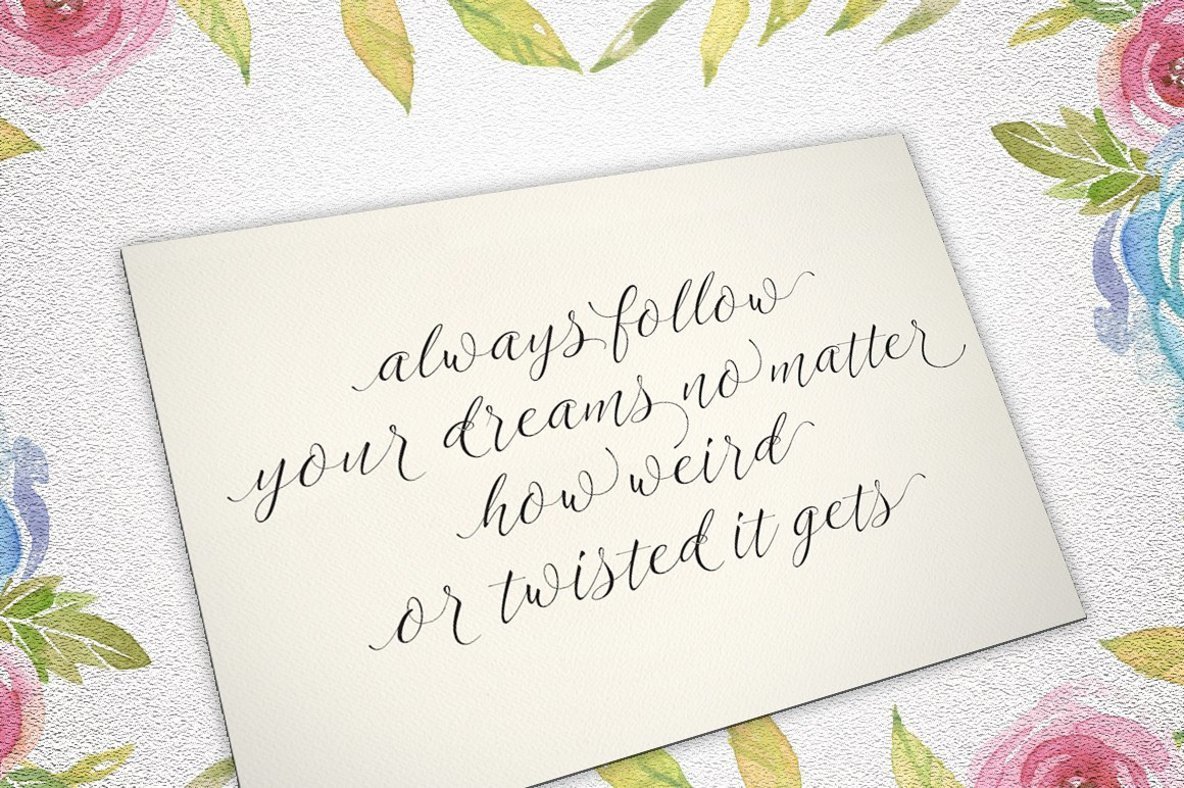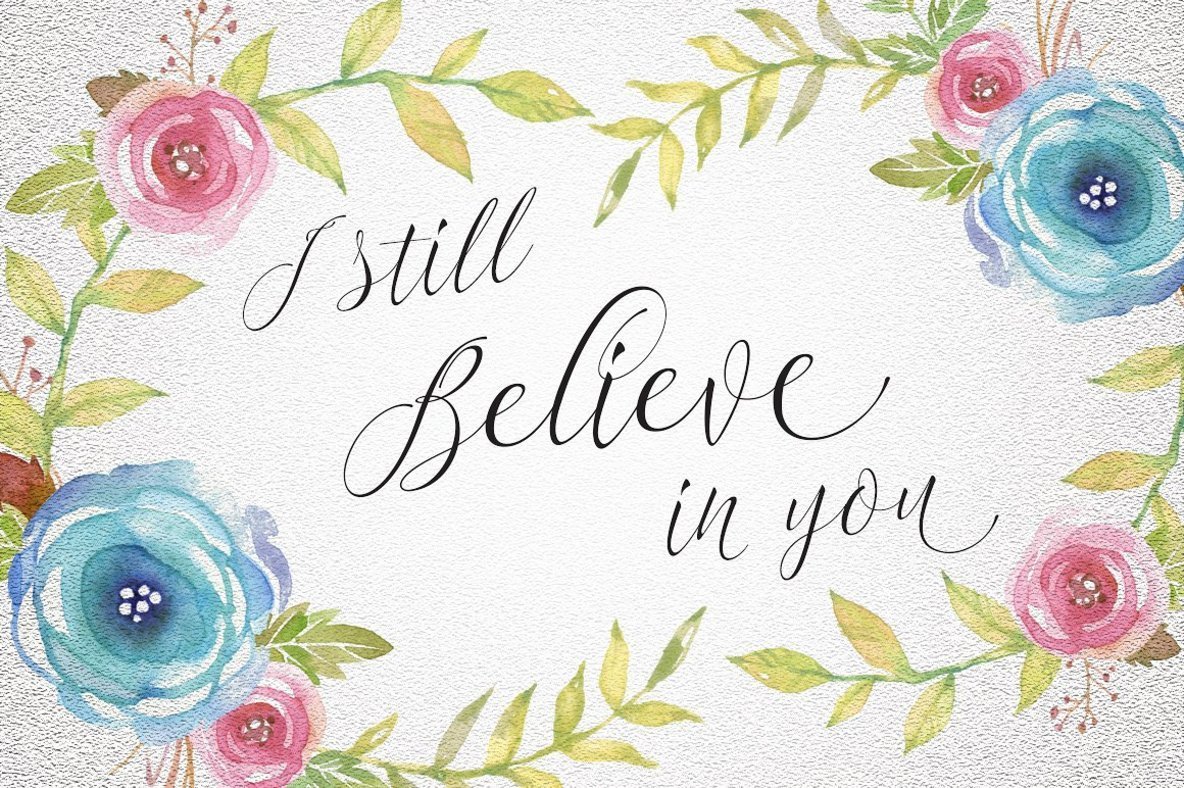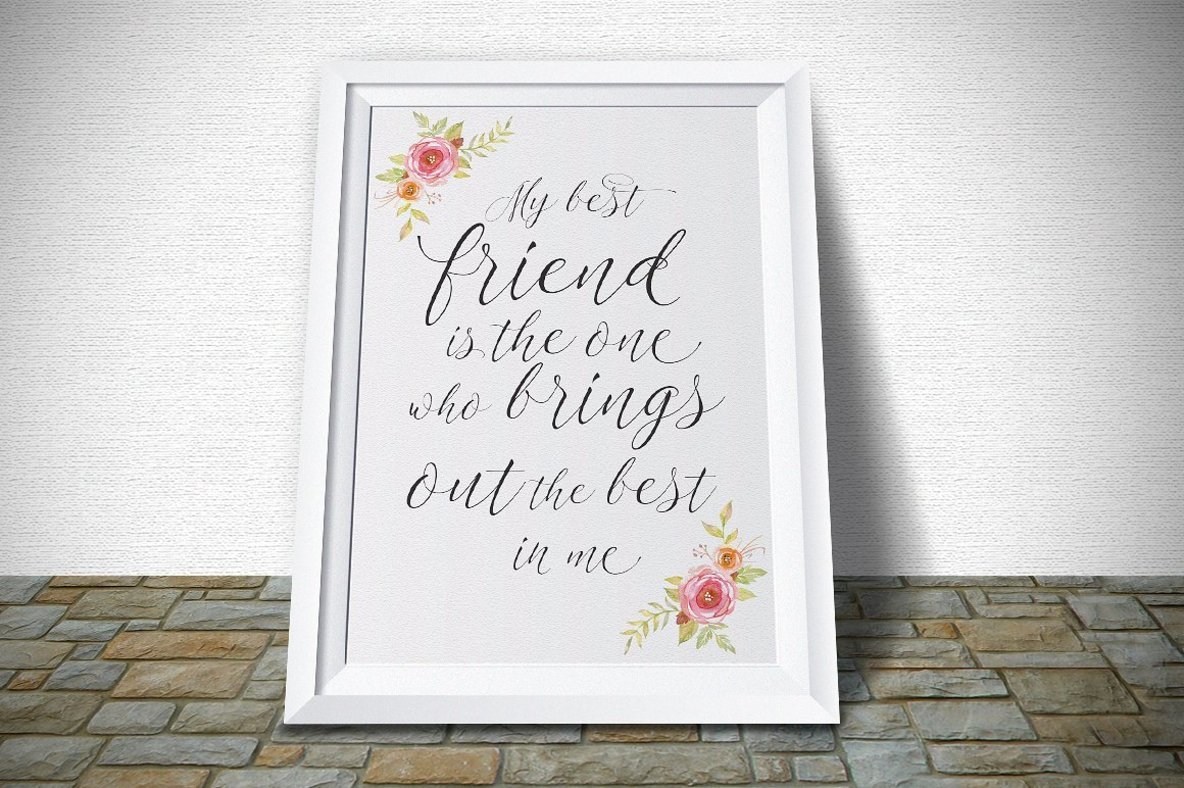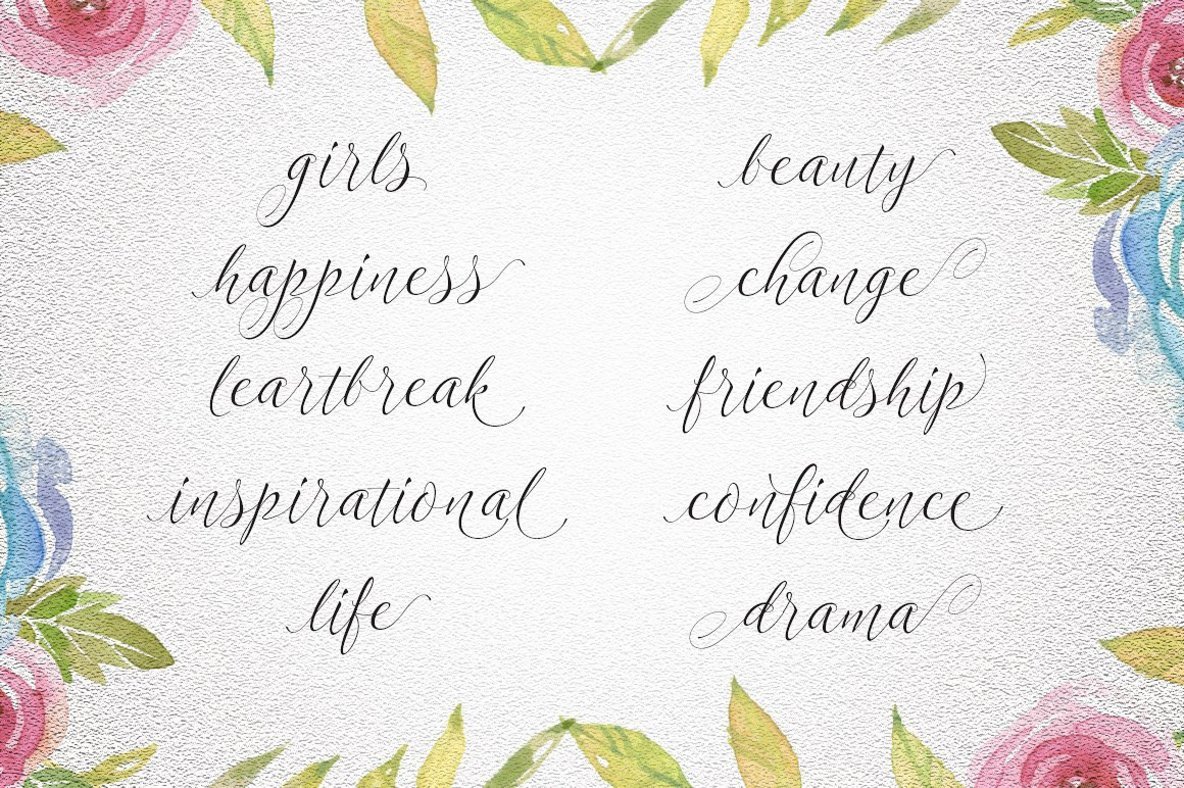
Lettuce Font
Lettuce
Immerse yourself in the fluid elegance of Lettuce, a modern calligraphy font crafted by Artisan Studio. Drawing inspiration from handwriting, this font offers both modernity and unique shapes in its calligraphic forms, maintaining a distinctly natural writing flow. With a repertoire of 354 glyphs, including 185 alternate glyphs, Lettuce provides a feast for the eyes. Lettuce integrates smoothly with leading design software, including Adobe Photoshop, Adobe Illustrator, Adobe InDesign, Corel Draw, and Microsoft Office. Its versatility suits a wide range of applications — from logos and headings to wedding invitations, signage, and apparel design. The font includes PUA Unicode, offering easy access to all character variations. For a comprehensive experience of OpenType features like stylistic alternates, it's best utilized in applications supporting OpenType, such as Adobe Illustrator CS, Adobe InDesign, and CorelDraw X6-X7.Lettuce: A Natural Touch in Modern Calligraphy